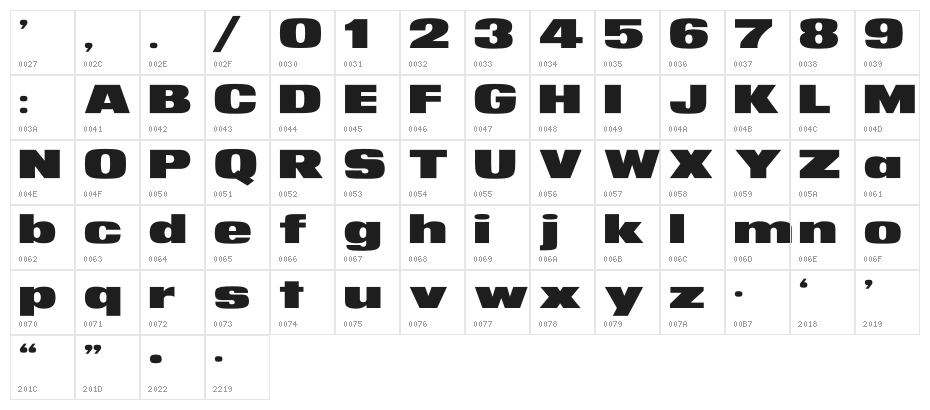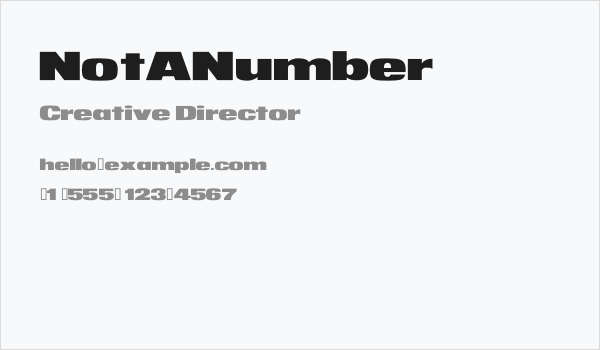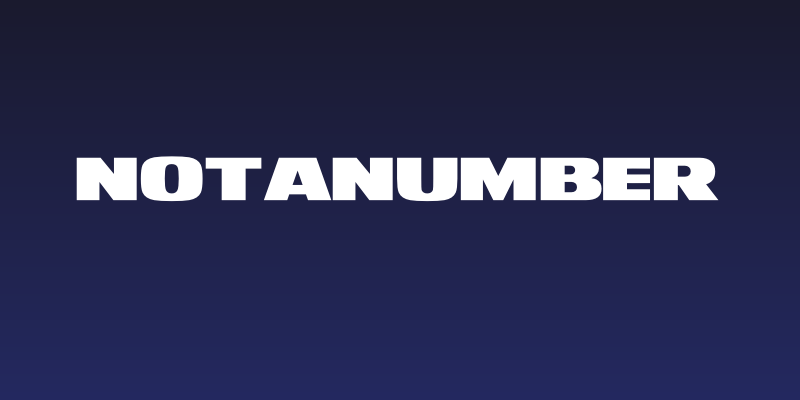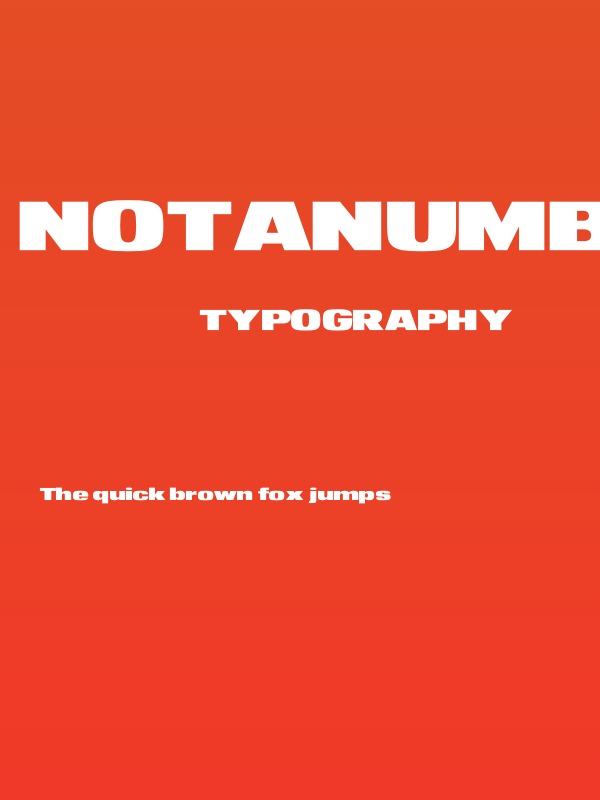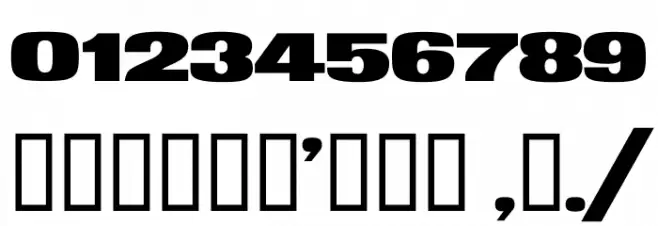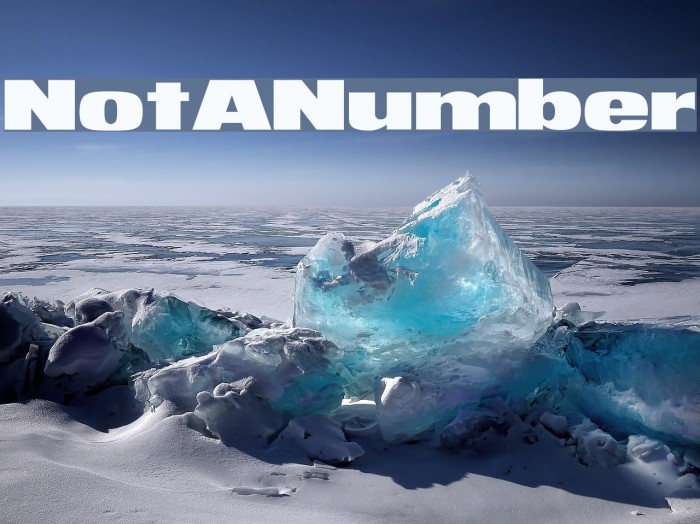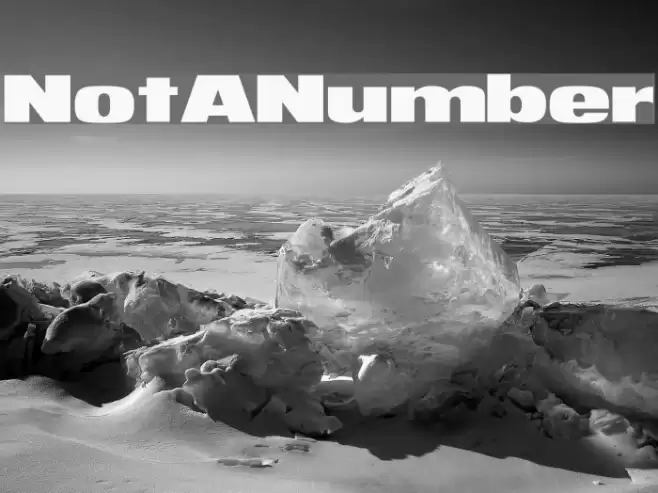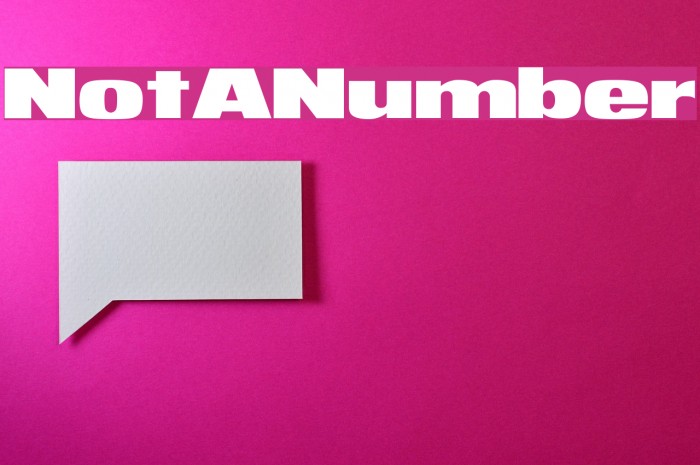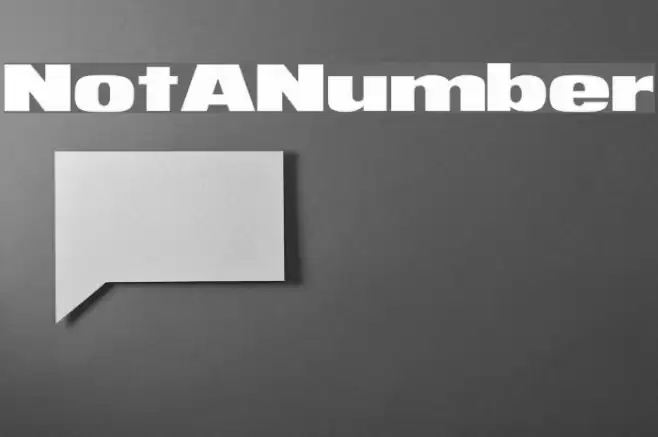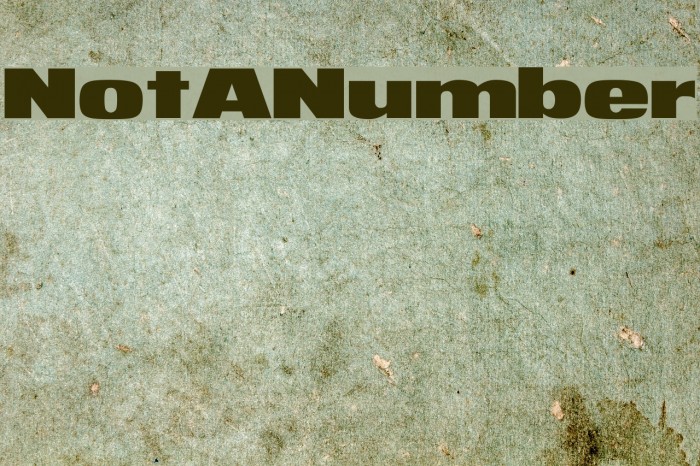
NotANumber Font
NotANumber Description
This bold and impactful font features thick, uniform strokes that create a strong visual presence. The uppercase and lowercase letters are designed with a consistent width, giving the font a cohesive and powerful look. The numbers and special characters follow the same bold style, ensuring uniformity across all characters. The font's geometric shapes and clean lines make it ideal for attention-grabbing designs. Its modern and assertive appearance is perfect for projects that require a strong and confident typeface.
| Proposed Projects | Ideal for headlines, posters, branding, and advertising materials that need a strong visual impact. |